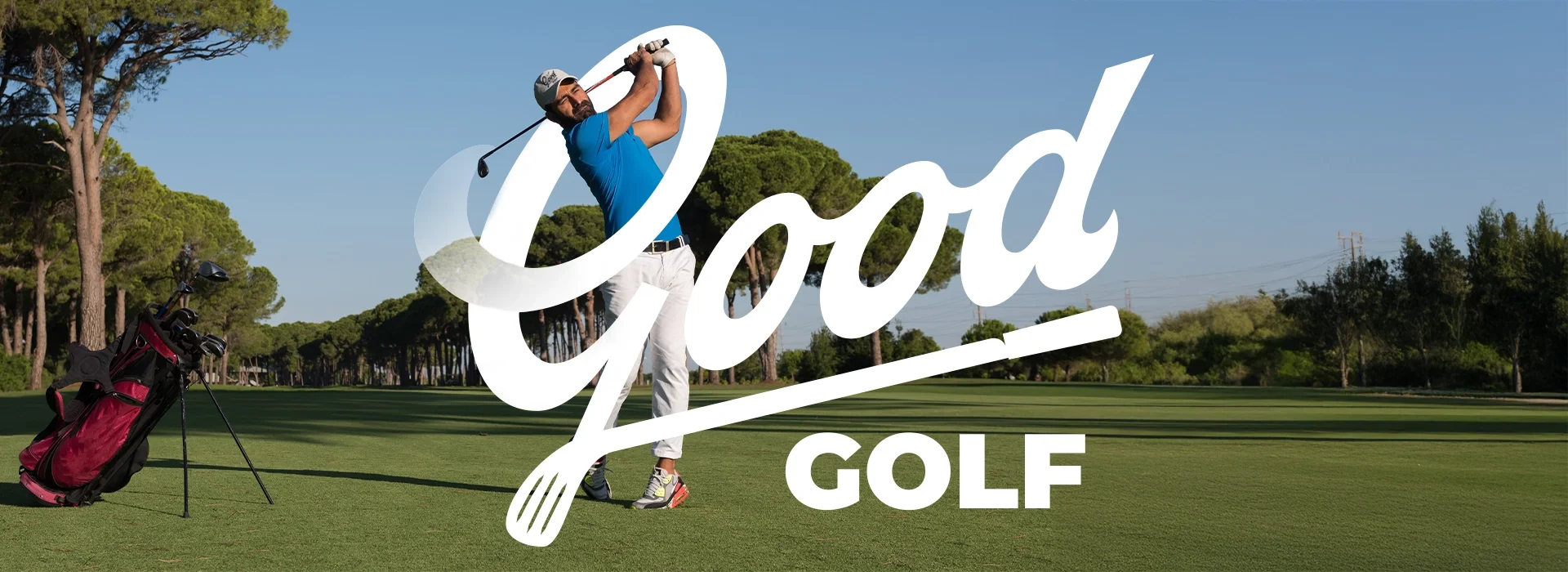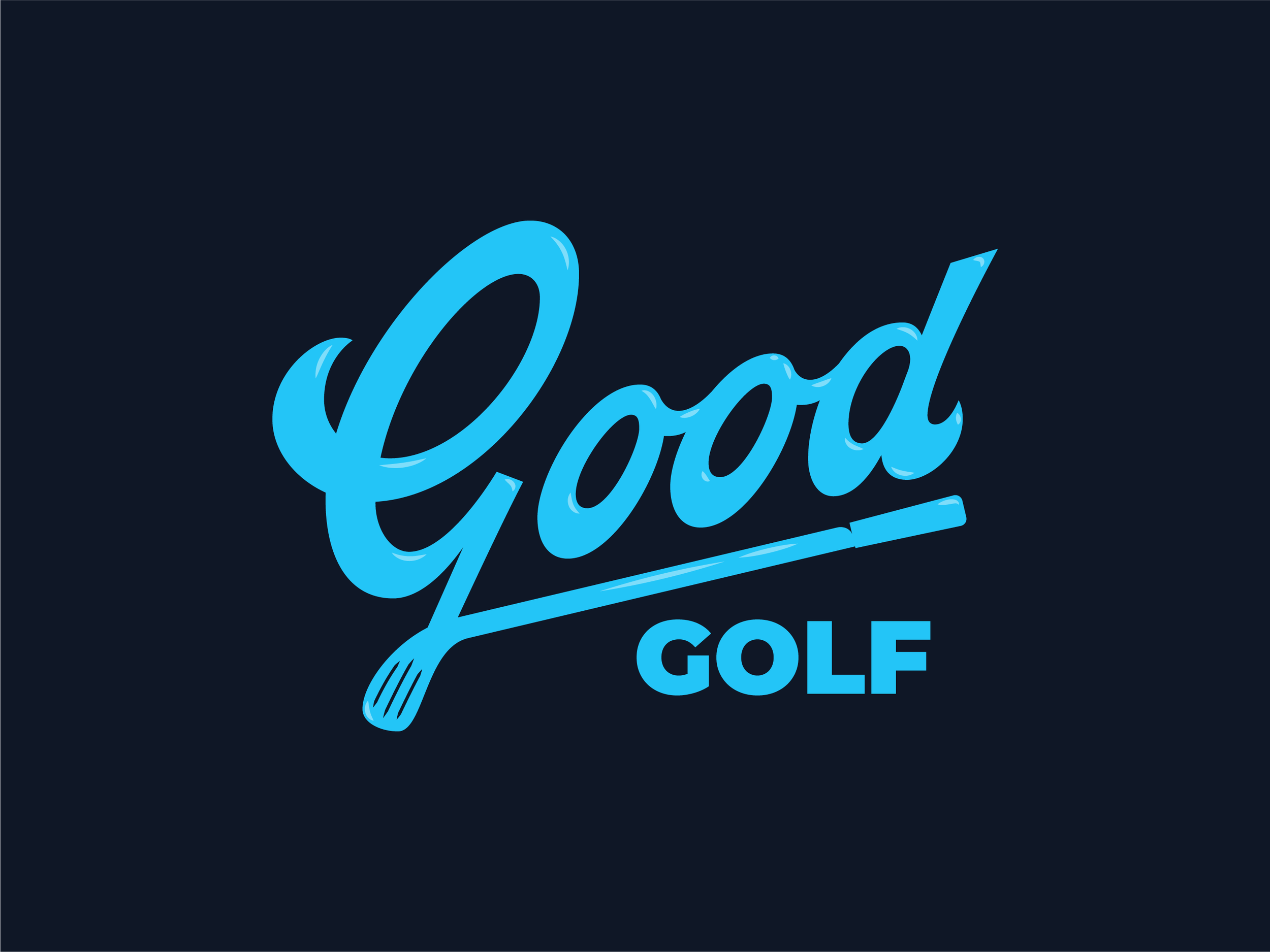
A man playing golf on a lush green golf course with trees in the background, holding a golf club after swinging, with the text 'Good Golf' overlaid.
Custom, hand-drawn script word mark with a playful hook, literally. The flowing descender and extended swash of the “G” cleverly transform into the shaft of a golf club, finished with a stylized clubhead that’s instantly recognizable. This integrated design element doesn’t just look sharp, it tees up the brand’s identity in a way that feels intentional, polished, and full of personality.
Good Golf
Neon sign with the words 'Good Golf' in light blue cursive font on a dark background, with a small golf club graphic underneath.
The top loop of the “G” subtly echoes the arc of a golf swing, capturing that satisfying, full-body motion. It adds a sense of movement and rhythm, like a well-timed backswing at the top of the turn. Combined with the bright, confident color and bold wordmark beneath, the logo feels energetic and approachable—ideal for a clothing brand aiming to keep golfers looking good while they’re chasing birdies.
Close-up of green fabric with white embroidered logo reading 'Golf' with a fork incorporated into the text.